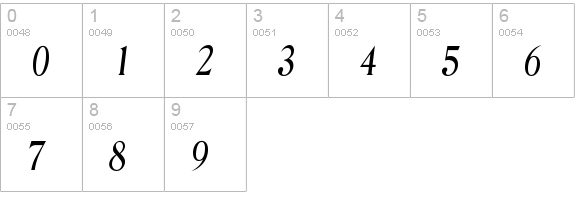
Denver-RegularIta font is a versatile and elegant typeface that exudes a sense of modernity and sophistication. Its italic style adds a touch of flair and personality to any design project. The sleek and sleek design of Denver-RegularIta makes it perfect for a wide range of applications, from branding and advertising to editorial and web design. What sets Denver-RegularIta font apart is that it is available for free download at FontsMarket.com. This means that you can easily access and use this high-quality font in your projects without any cost. Whether you're a professional designer or a hobbyist looking to elevate your creations, Denver-RegularIta font is a fantastic choice that won't break the bank. With its clean lines, legible letterforms, and modern aesthetic, Denver-RegularIta font is sure to make a lasting impression on your audience. Download it today and see how this versatile typeface can take your designs to the next level.